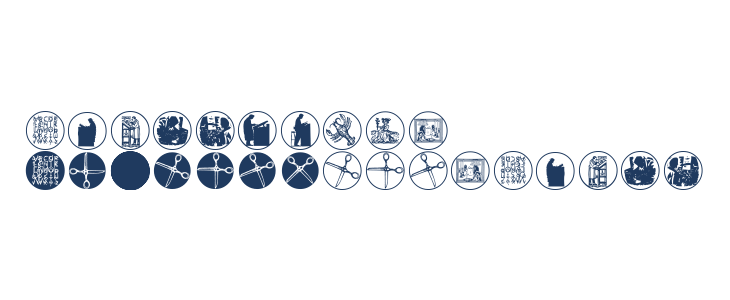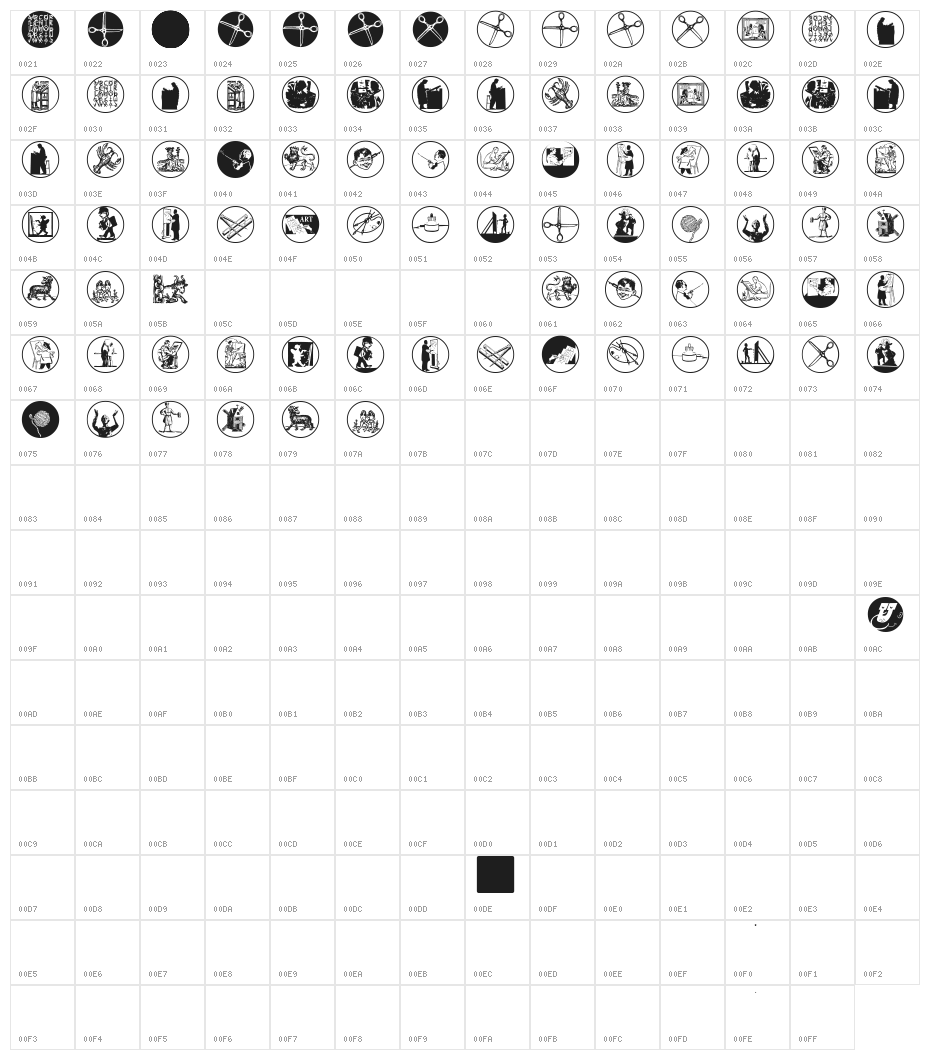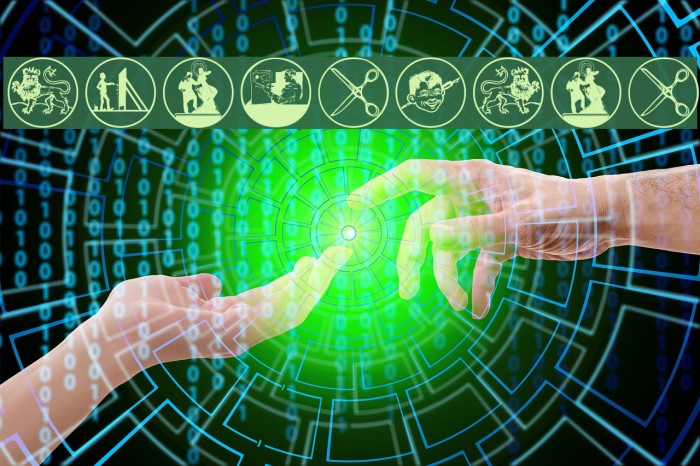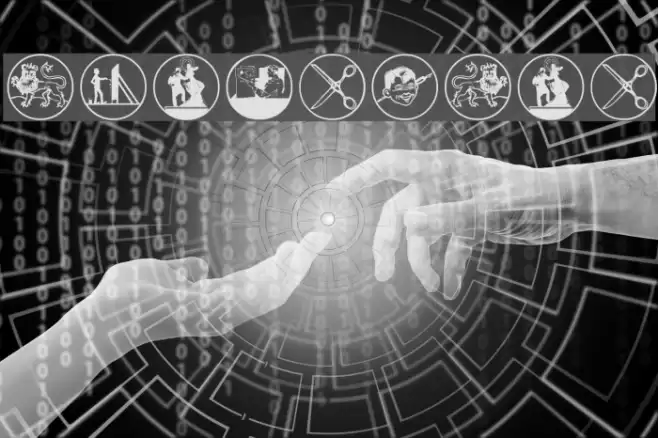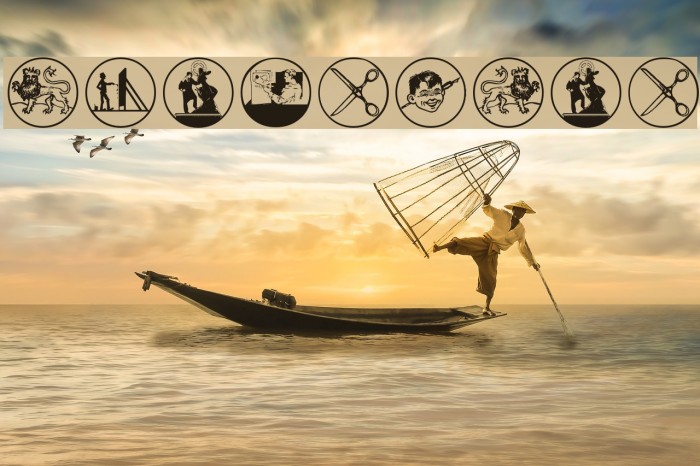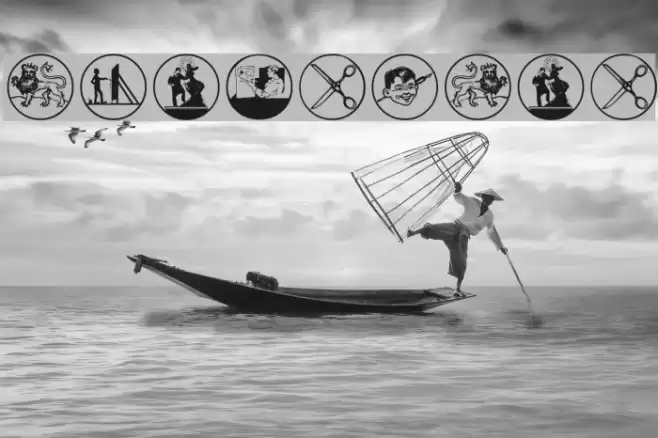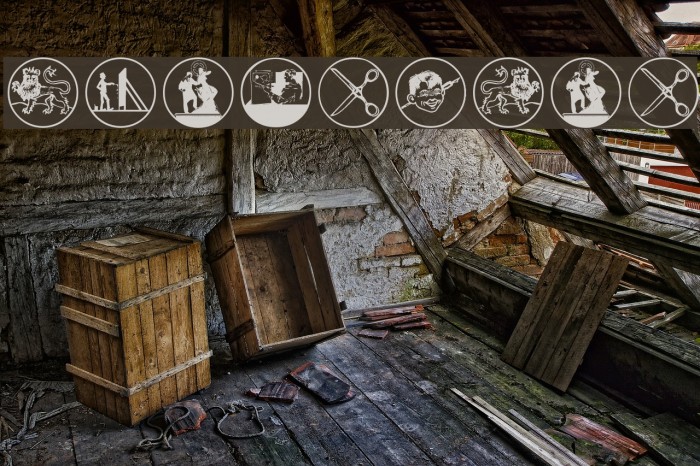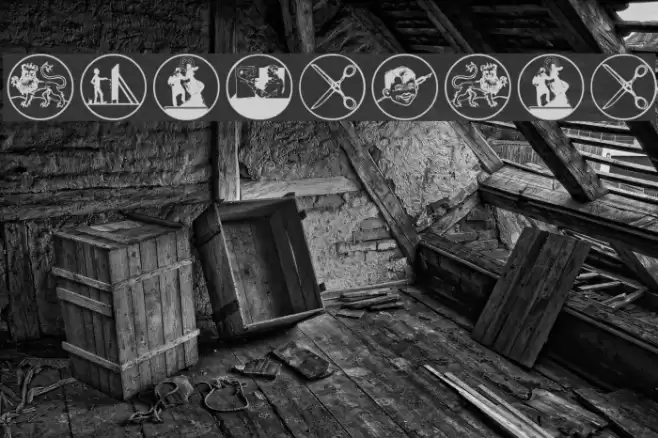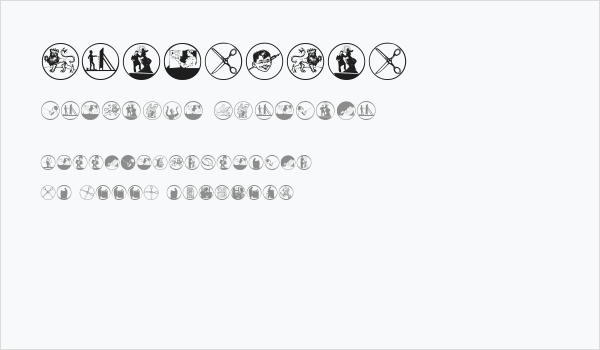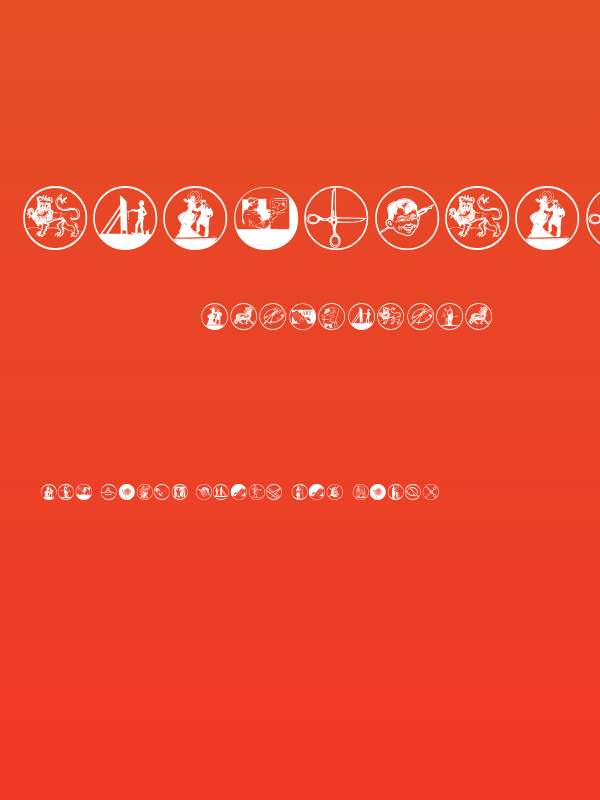
ArtesBats Font
ArtesBats Description
This set features a collection of whimsical and artistic symbols enclosed within circular frames. Each symbol depicts a unique scene or character, ranging from abstract art to playful figures. The style is illustrative, with a hand-drawn quality that adds a touch of creativity and humor. The symbols are detailed and varied, making them suitable for a range of artistic and decorative applications. The circular design provides a cohesive look, while the diversity of the illustrations offers versatility in use. These symbols can be used to add a fun and artistic flair to projects, making them ideal for creative endeavors.
Use CaseLogos, Decorative elements, Art projects
Proposed ProjectsIdeal for use in graphic design, art projects, educational materials, and decorative elements in print or digital media.